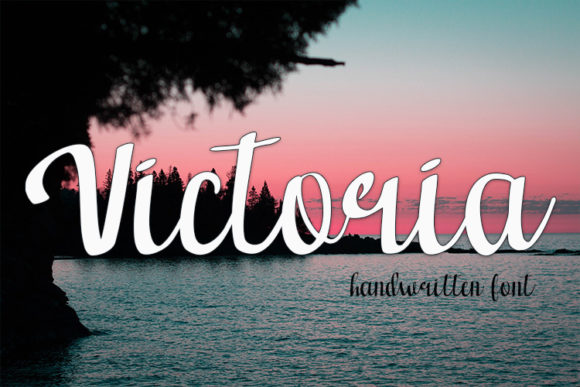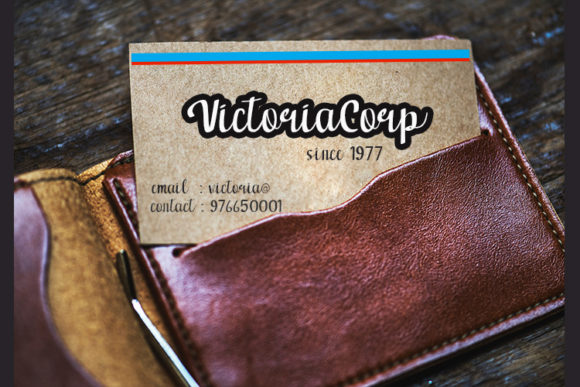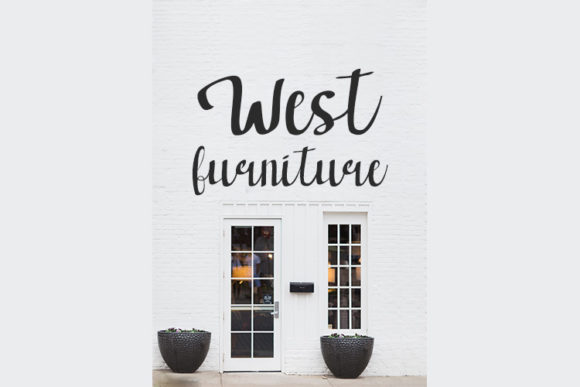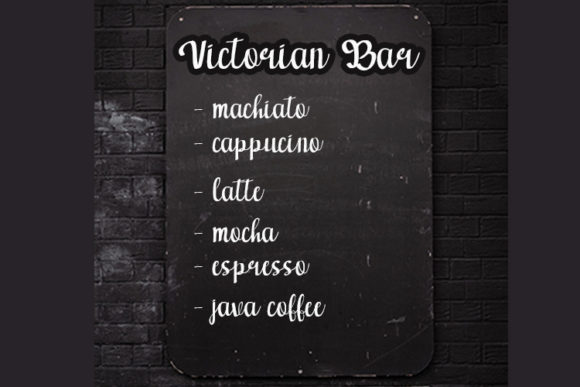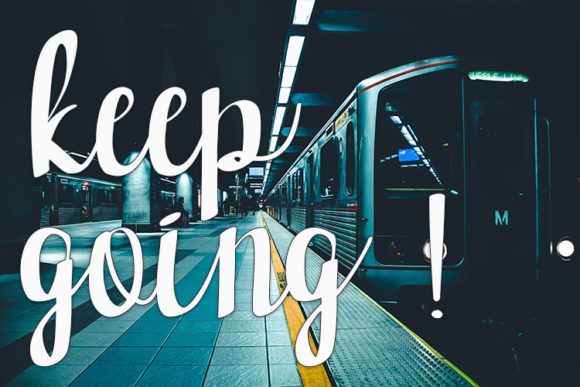
Victoria Font
The Victoria is a minimalist beautiful handwritten font. It comes with an elegant feel which looks lovely on business card quotes, t-shirts, signage’s, logos, goods and more.